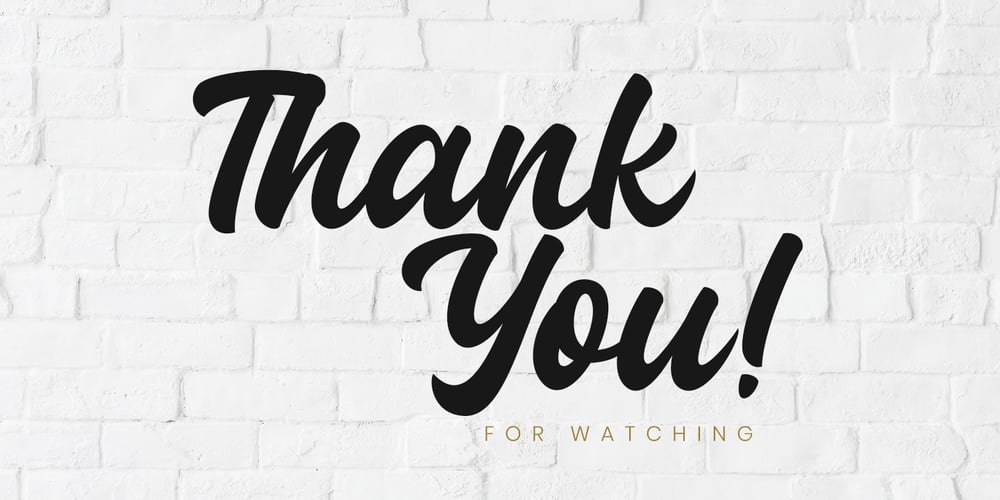
Guthenberg Font Family was designed by Rian Rahardi and published by Creatype Studio. Guthenberg contains 2 styles and family package options. Guthenberg Bold Script is a bold calligraphy script with dramatic movement and strong style for your latest project that needs a handlettering look. It’s perfect for branding projects, logo, wedding designs, social media posts, advertisements, product packaging, product designs, labels, photography, watermarks, invitations, stationery and any projects that need handwriting style. Guthenberg comes with uppercase, lowercase, numerals, punctuations and many variations of each character, including OpenType alternates and common ligatures to let you customize your designs.